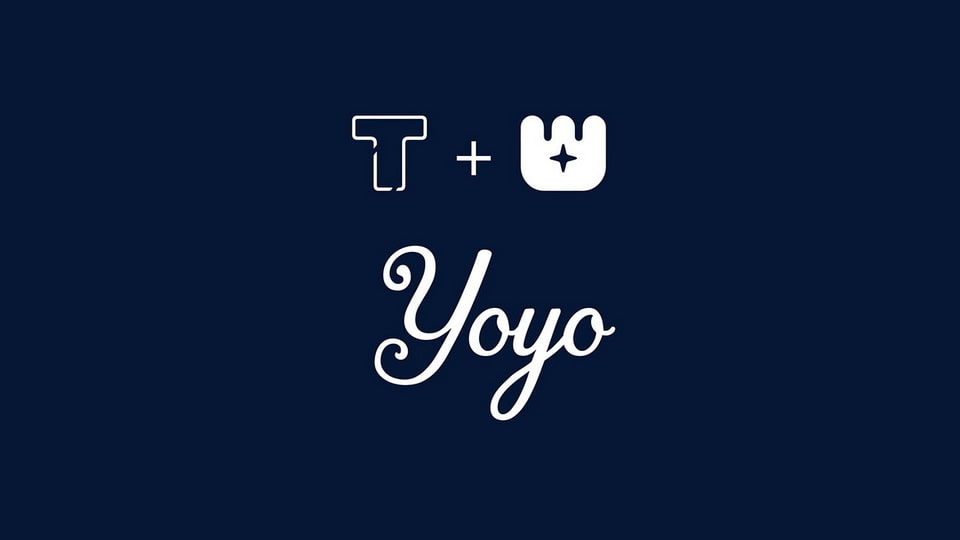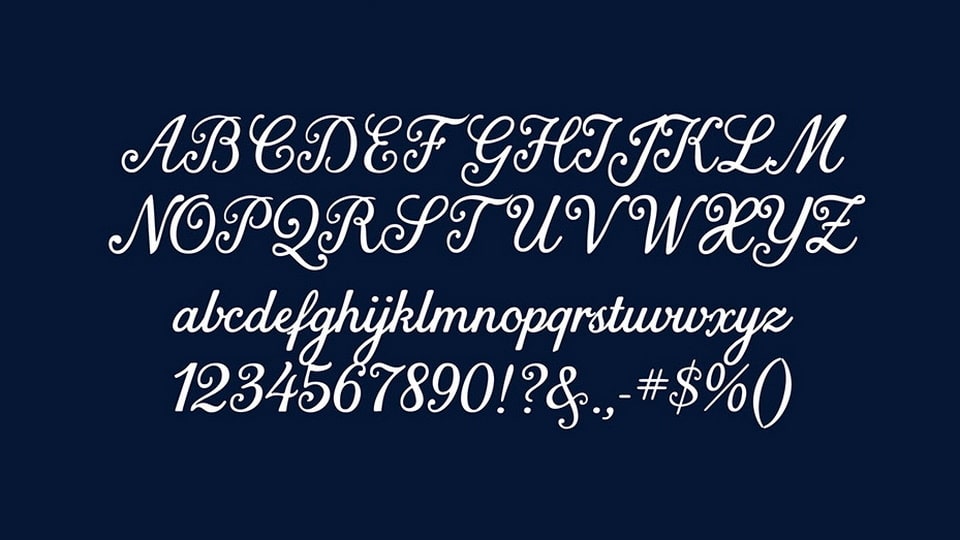
LT Yoyo is a slightly blurred script font that is perfect for adding a touch of whimsy to your projects. The font has developed a playful, hand-drawn look, and it’s great for invitations, cards, and other special projects.